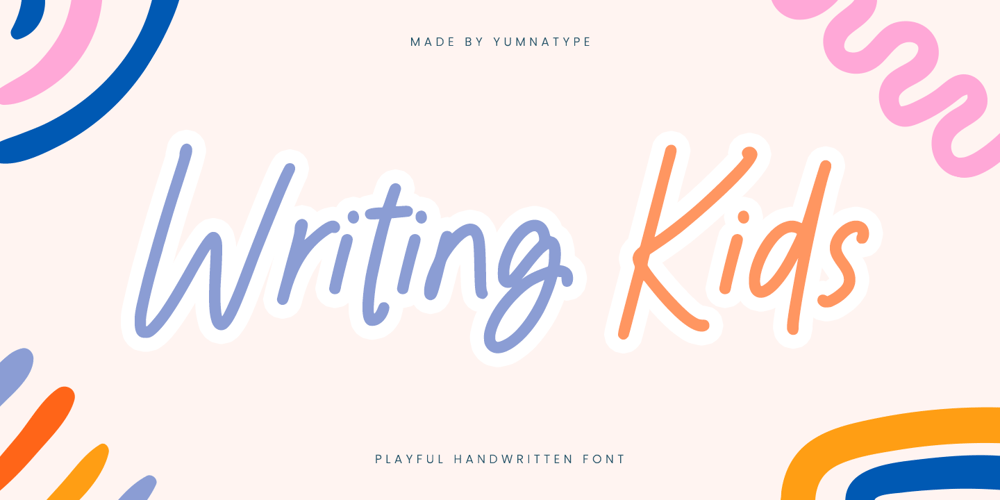
Writing Kids Font Family was designed by Donis Miftahudin and published by Yumna Type. Writing Kids contains 1 styles and family package options. Writing Kids is a delightful handwritten font designed to capture the playful spirit of childhood. With its casual, handwritten style, this font brings a sense of fun and spontaneity to any project. The low contrast between strokes ensures a smooth and consistent look, enhancing its legibility while maintaining its whimsical charm. In addition, enjoy the features here.Features: Ligatures Multilingual Supports PUA Encoded Numerals and Punctuations Writing Kids fits in headlines, logos, posters, flyers, branding materials, print media, editorial layouts, and many more designs. Find out more ways to use this font by taking a look at the font preview.Thanks for purchasing our fonts. Hopefully, you have a great time using our font. Feel free to contact us anytime for further information or when you have trouble with the font. Thanks a lot and happy designing.